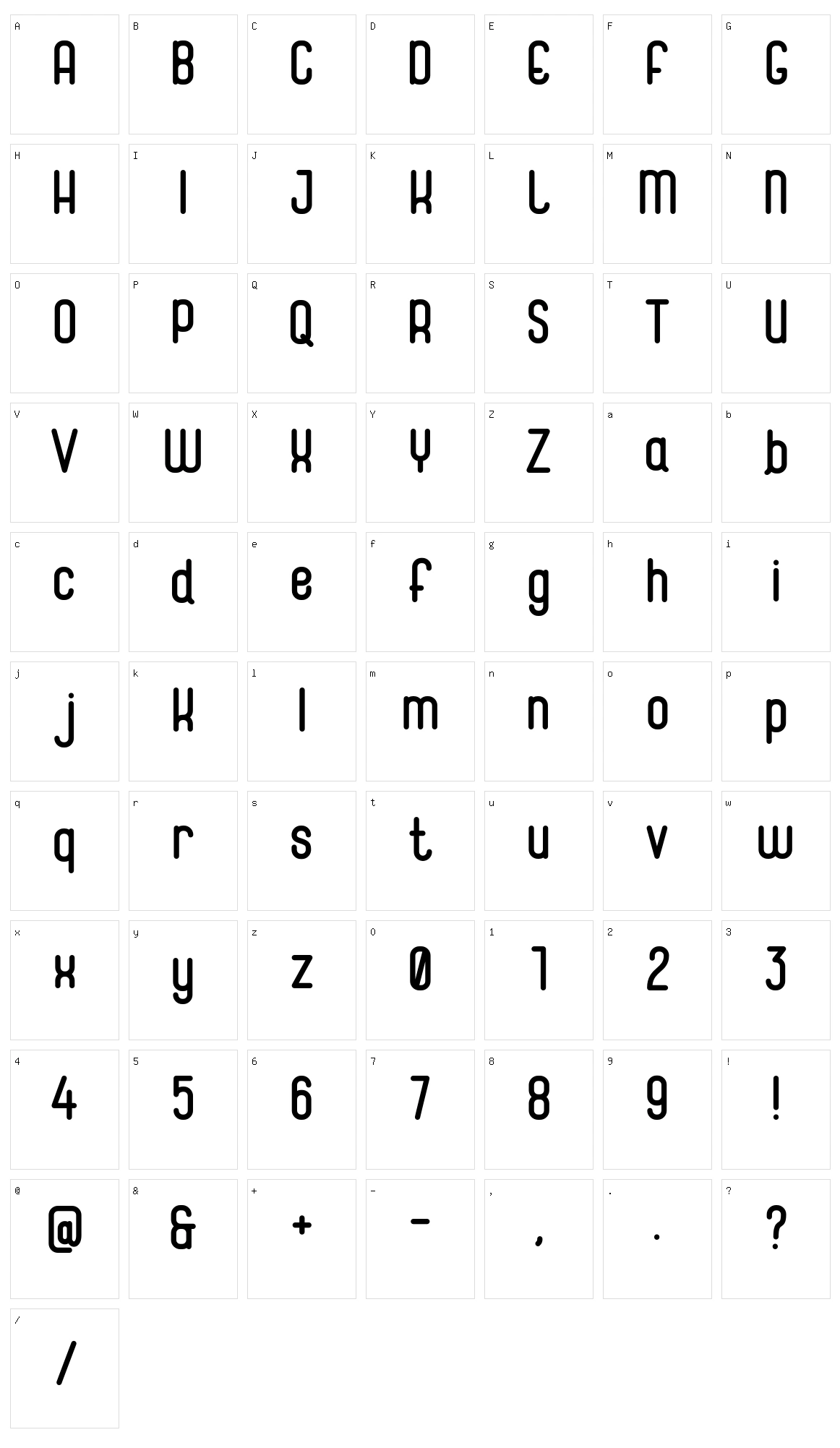
The free font Magneum is carefully designed by Indriyanti, showcasing a thoughtful balance of creativity and usability and falls under the Sans serif font style. When you download the ZIP file, it contains only 10.01 KB of font files, making it lightweight and quick to download. Please review the license details below to understand permitted usage and distribution rights. If license information is not available, we recommend using this font for personal projects only or contacting the author directly for commercial usage permissions.